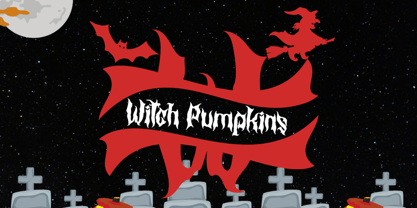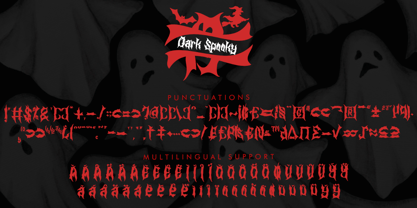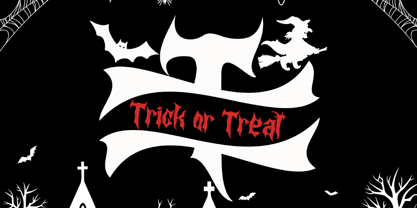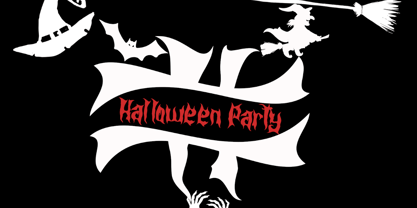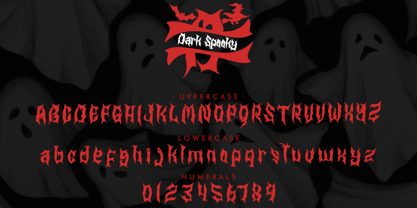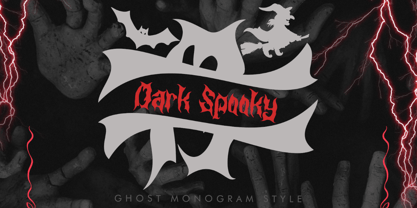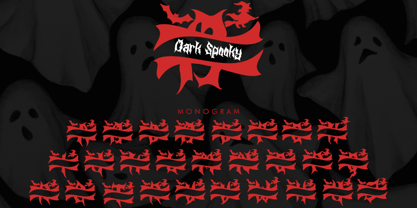
Dark Monogram
by Yoga Letter
The Dark Monogram Font Family was designed by Isroni Yoga Prasetya and published by Yoga Letter. Dark Monogram contains 2 styles and family package options. More about this family
"Dark Spooky Monogram" is a spooky and horror-themed monogram font. It features horror monograms, uppercase and lowercase letters, numerals, punctuations, and multilingual support. It's perfect for Halloween, Christmas, festivals, logos, stickers, posters, prints, banners, branding, tattoos, fall, autumn, horror movie titles, book titles, comics, t-shirts, ghost stories, and more.
Designers: Isroni Yoga Prasetya
Foundry: Yoga Letter